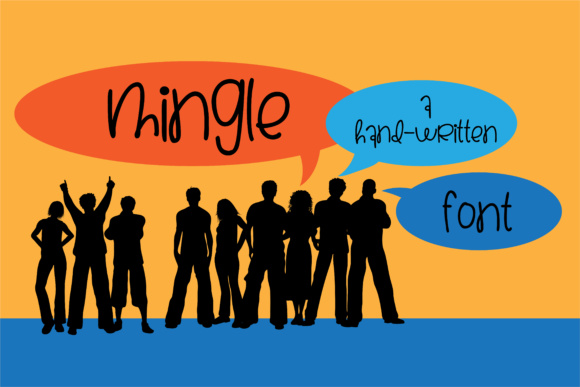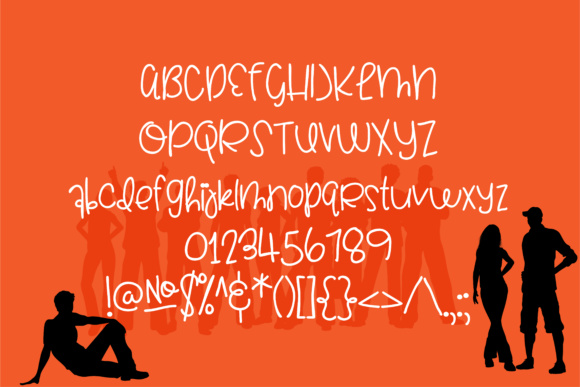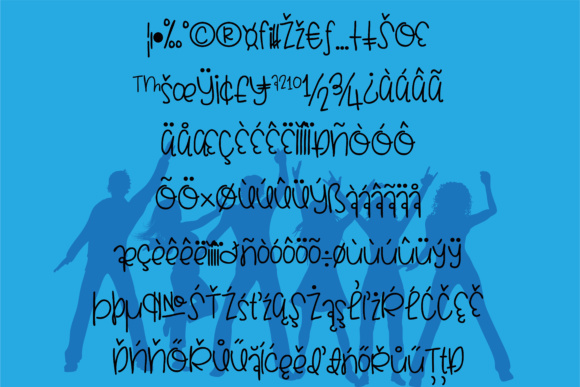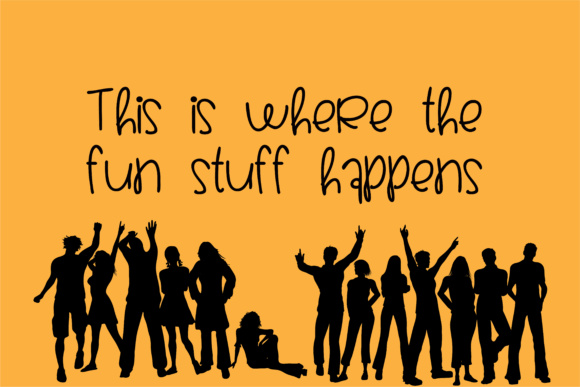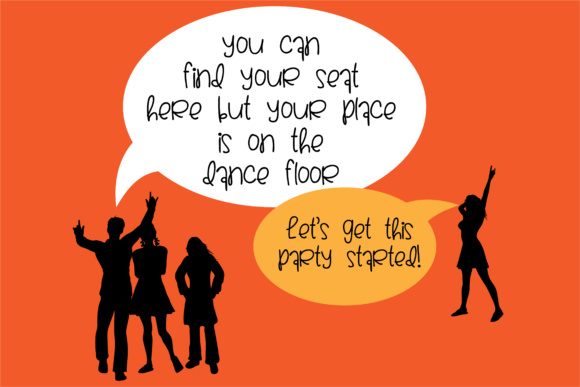
Mingle Font
About Mingle Font
Mingle is a casual handwritten font crafted to keep your works feeling light and casual. This font is legible and cute, and works in a multitude of themes.